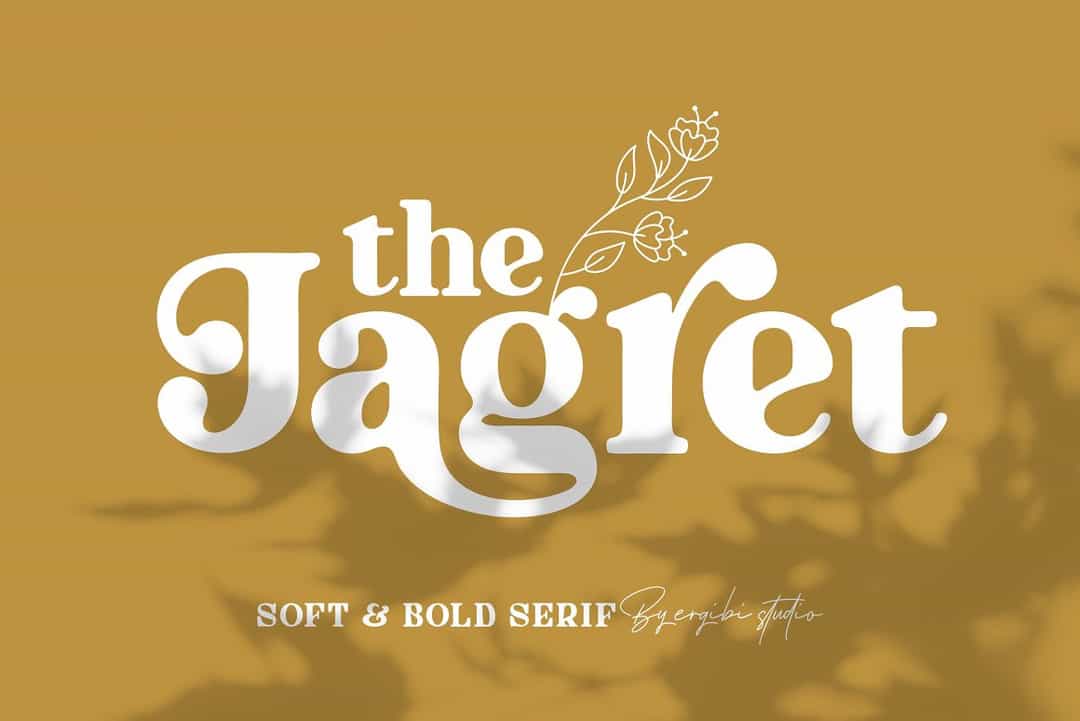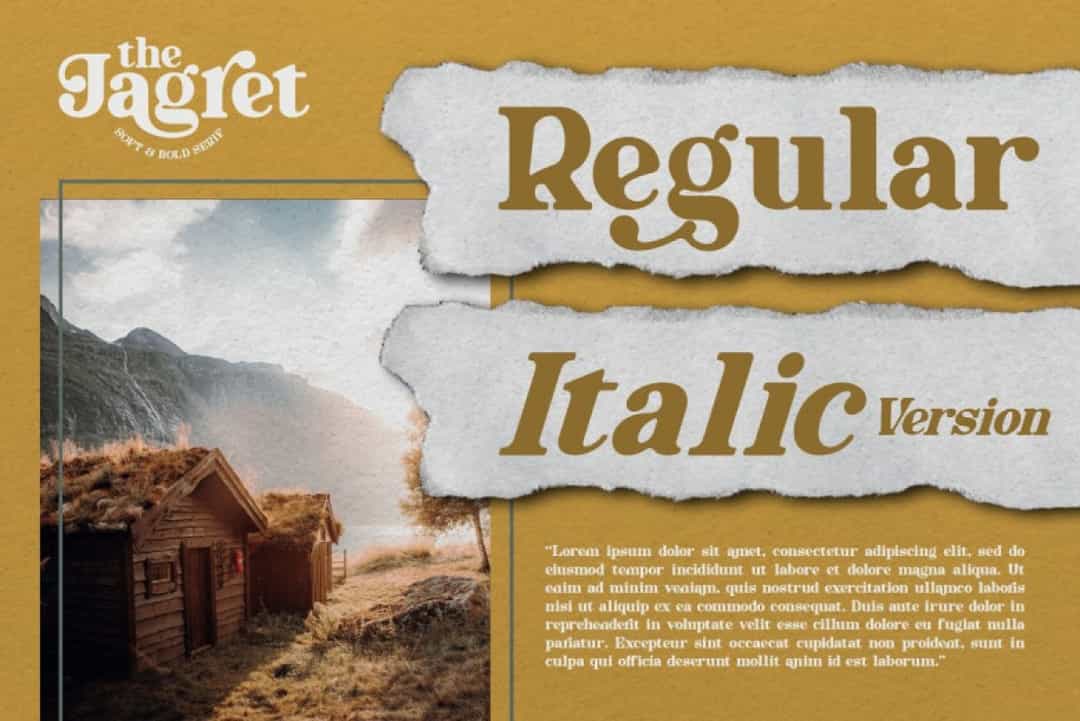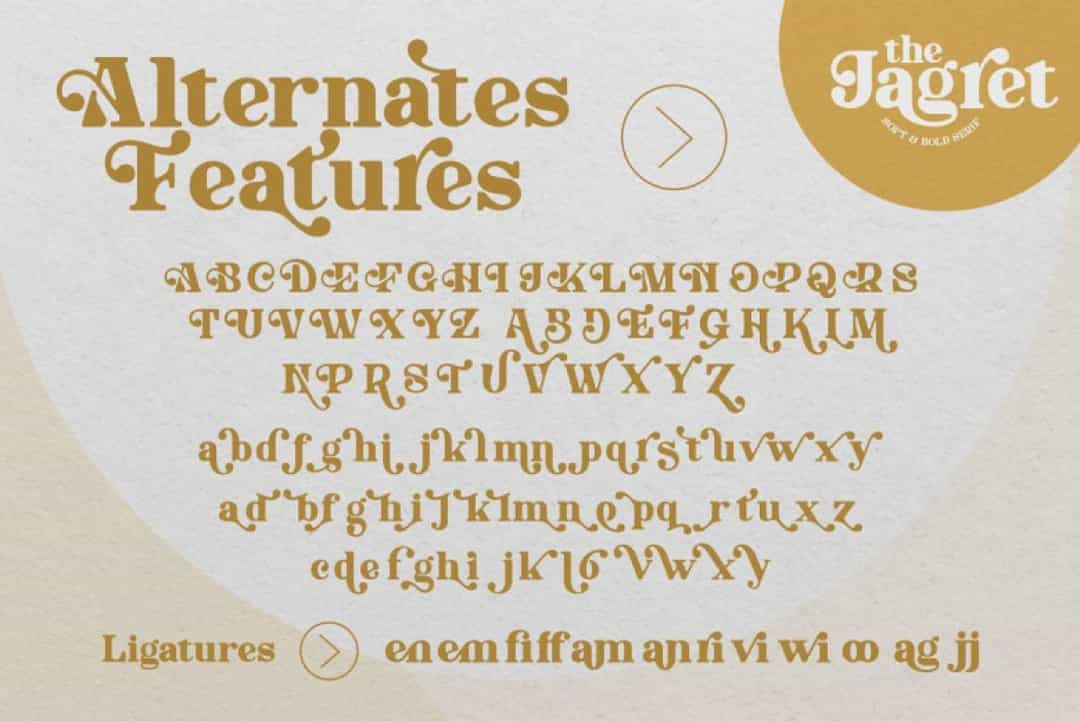
Discover The Jagret Font, part of the Serif collection—a versatile and unique font perfect for adding a personal touch to your projects. Download it for free and enjoy crafting designs with style, from invitations to social media posts. This font is available exclusively for personal use, giving you the freedom to create without limits. Unlock your creativity with The Jagret Font today!
Jagret is a soft and large serif font. With its unique collection of alternative serif characters, Jagret stands out among other fonts as an eye-catching font perfect for headlines posters logos packaging T-shirts cafes restaurant headers magazine headlines gift/postcards weddings cafes or any other purpose advertising purposes.